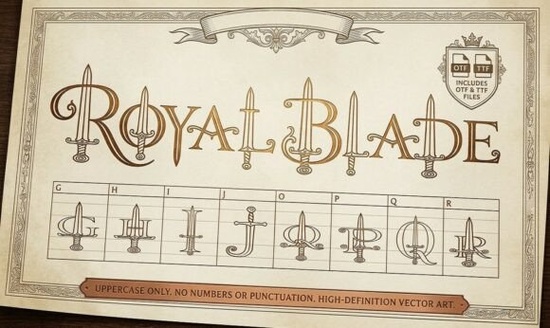
If you're looking for a bold, dramatic font that stands out on posters, logos, or book covers, Royal Blade Font delivers exactly that. It’s not just a typeface it’s a statement. Each letter is handcrafted with intricate sword and dagger details, blending medieval artistry with clean, elegant outlines. Whether you’re designing for fantasy themes, gaming content, or edgy apparel, this font brings a unique visual impact.
What makes Royal Blade Font stand out?
Unlike basic display fonts, Royal Blade goes beyond simple letter shapes. Every character A through Z, numbers, and punctuation is embedded with a detailed weapon motif. The result? A design that feels both regal and fierce. The clean outline style keeps it readable while still packing visual punch, making it ideal for high-impact projects.
You’ll find it especially useful when you need something that grabs attention at first glance. Think of it as a digital calligraphy piece where each letter carries its own story.
Best uses for Royal Blade Font in real projects
- Book covers & drop caps: Perfect for fantasy novels, historical fiction, or RPG campaign guides. Imagine the opening chapter starting with a large 'E' shaped like a knight’s blade.
- Gaming clan logos: Create a strong identity for your guild or team with a name rendered in sword-infused letters.
- Tattoo designs: Many clients seek unique, meaningful symbols. This font can inspire custom tattoos with personal meaning.
- Apparel & merch: Use it on T-shirts, hoodies, or mugs for fans of dark fantasy, medieval lore, or edgy fashion.
- Monograms & branding: Pair it with simpler fonts for a balanced look great for wedding invites, business cards, or product packaging.
It works well in both digital and print formats, so whether you’re printing on paper or creating social media graphics, the detail holds up beautifully.
How to use it without overwhelming your design
Because Royal Blade is highly decorative, it’s best used sparingly. Using it for entire paragraphs can make text hard to read. Instead, focus on key elements:
- Use it for headlines, titles, or section headers.
- Pair it with a neutral, clean font (like a sans-serif) for body text.
- Limit color schemes to black, gold, silver, or deep reds to match the medieval aesthetic.
For example, a fantasy book cover might feature the title in Royal Blade, with the author’s name in a simple serif font underneath. The contrast enhances readability while keeping the mood consistent.
Where does it fit in your creative toolkit?
Final thoughts: Is it right for your next project?
If your goal is to create something memorable with a touch of legend and power, yes this font fits. It’s not for every design, but when the moment calls for drama, it’s ready to deliver.